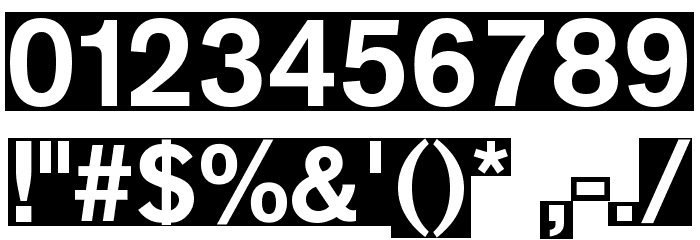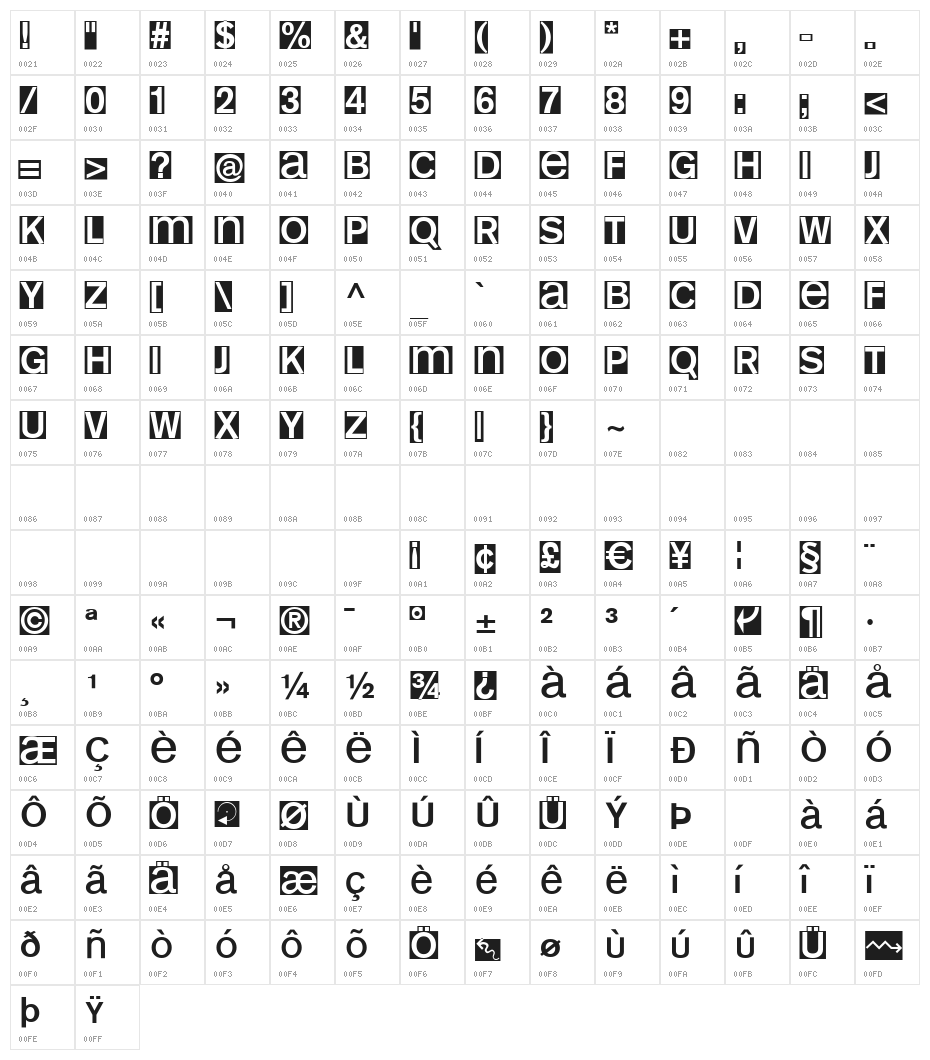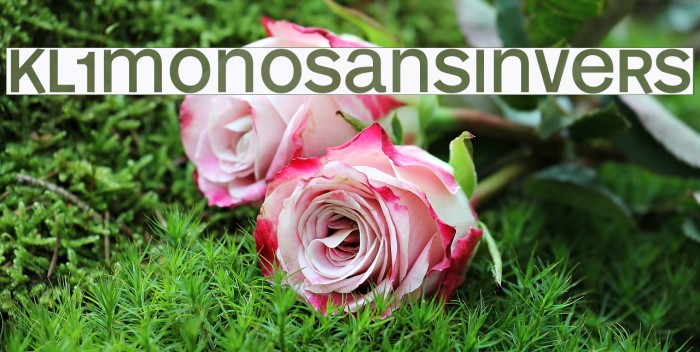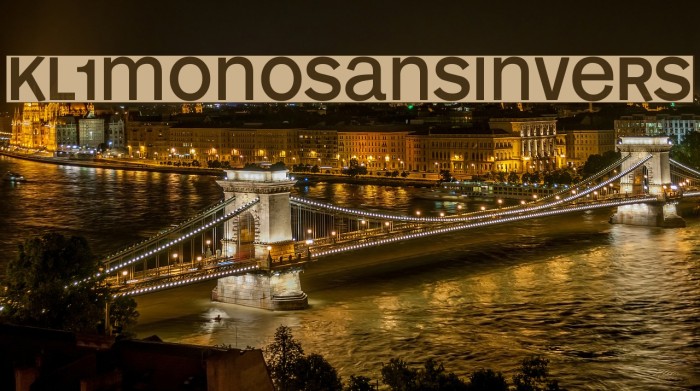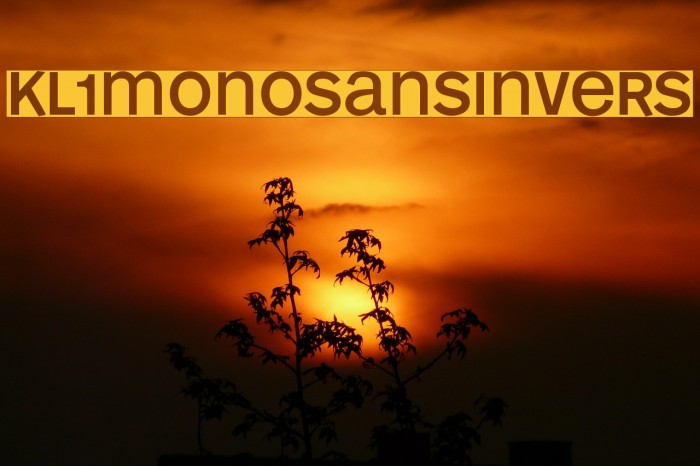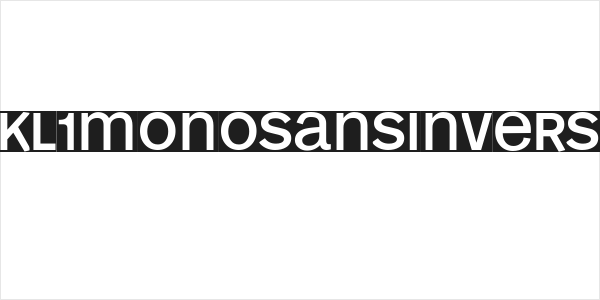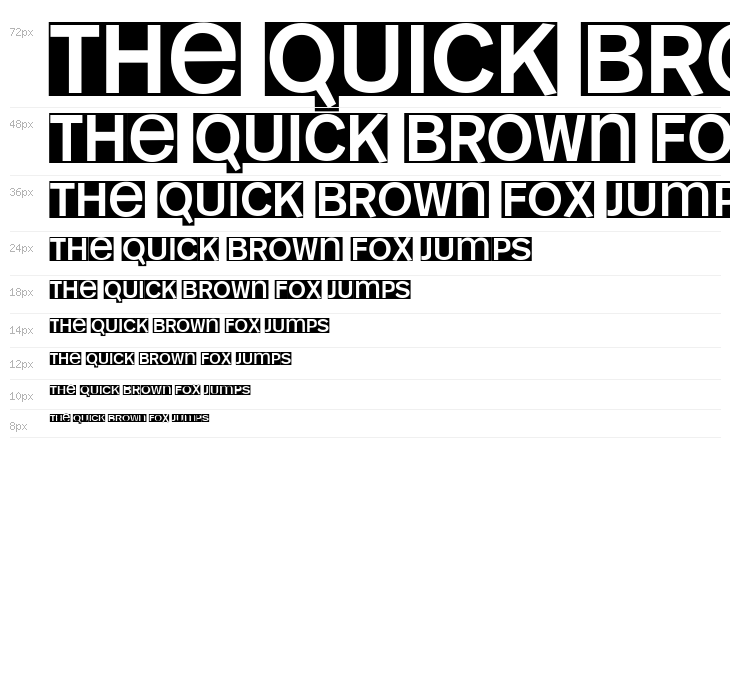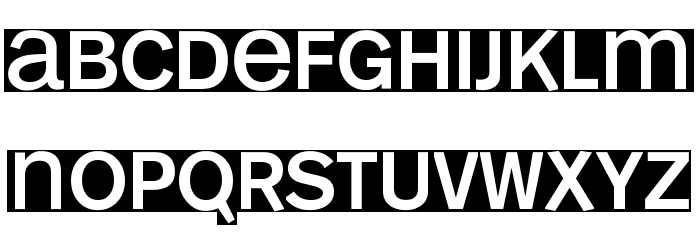
KL1MonoSansInvers Font
KL1MonoSansInvers Description
This font features a bold, geometric sans-serif style with a strong presence. The characters are uniform in width, giving it a monospaced appearance, which is ideal for coding or technical documents. The uppercase and lowercase letters maintain a consistent height, enhancing readability. The numerals are clear and distinct, making them suitable for data presentation. Special characters are well-defined, adding to the font's versatility. The overall design is modern and clean, with a focus on functionality and clarity.